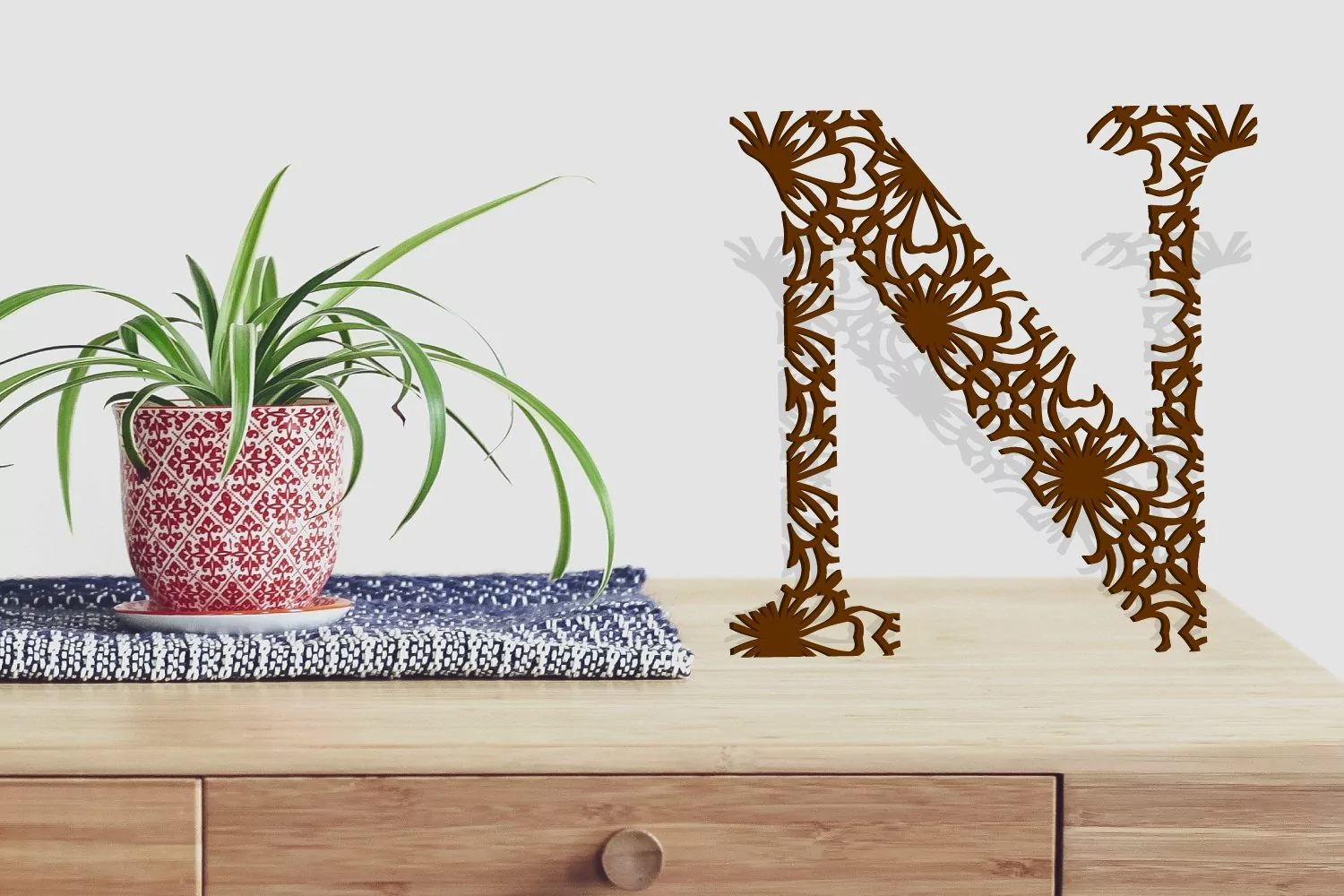
Presenting Unique Texture font that resemble Desert oasis, Perfect for all kind of printing materials, Online and web presentation, Crafts and Paper cut font for you. This made specially for you. Get this in 50% off price.
1- texture Layered Base
2- Unique and Creative
3- Best for all kinds of Printing Stuff.